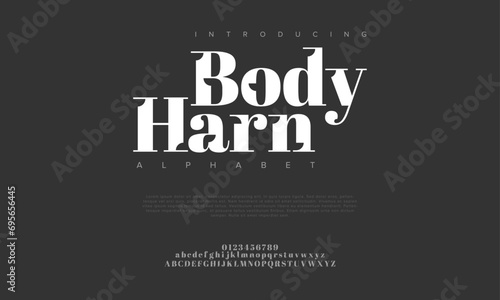
Bodyharn creative modern urban alphabet font. Digital abstract moslem, futuristic, fashion, sport, minimal technology typography. Simple numeric vector illustration